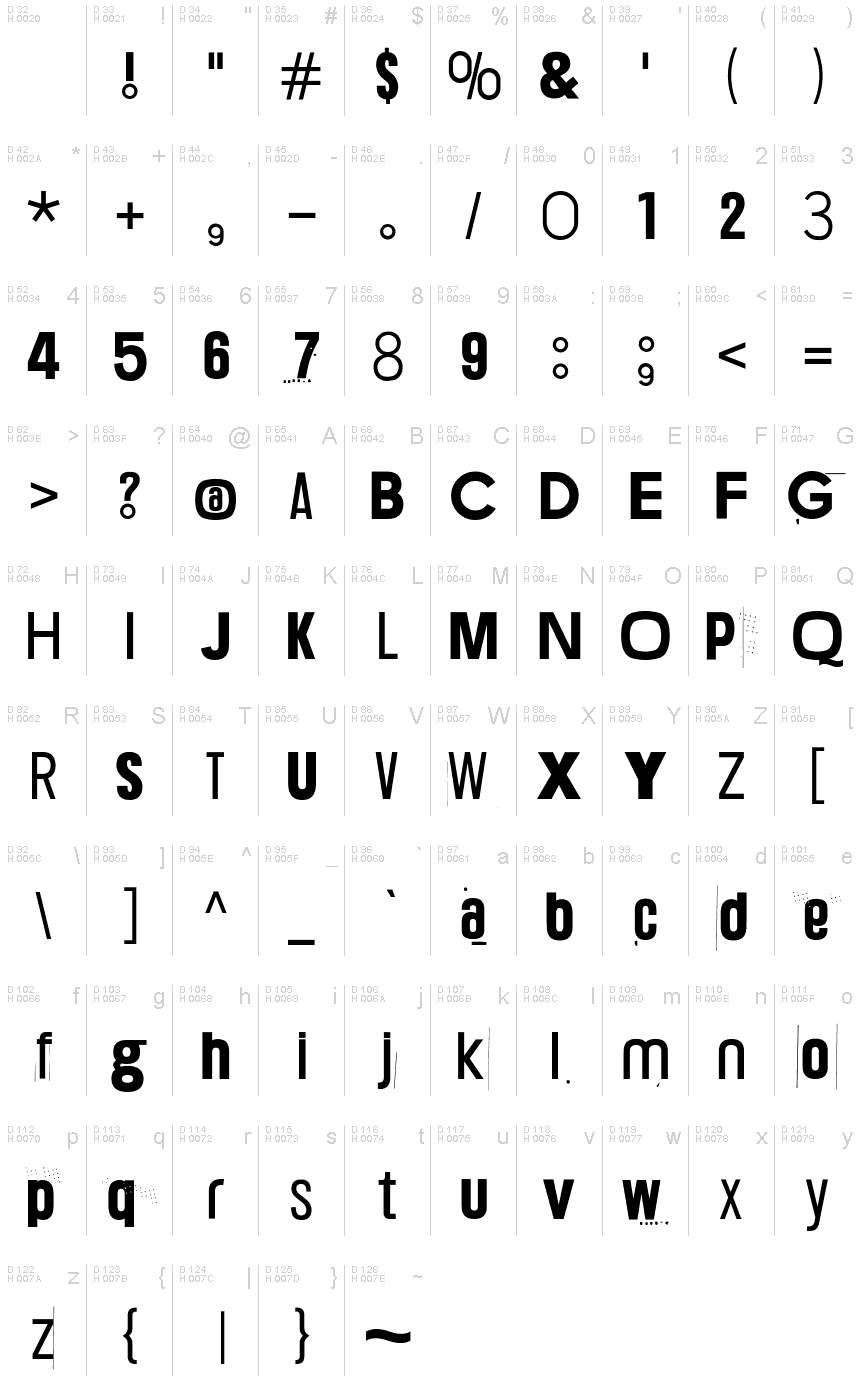
Mumugirous WZN
Mumugirous WZN, designed by junkohanhero, is a captivating display font that adds a touch of artistic distortion to your designs.
With its condensed width, this font is perfect for creating bold and eye-catching headlines, logos, and posters. The unique distortion effect gives your projects a sense of edginess and unconventional style. Whether you're working on album covers, fashion editorials, or urban streetwear branding, Mumugirous WZN will make your designs stand out from the crowd with its distinctively distorted look.